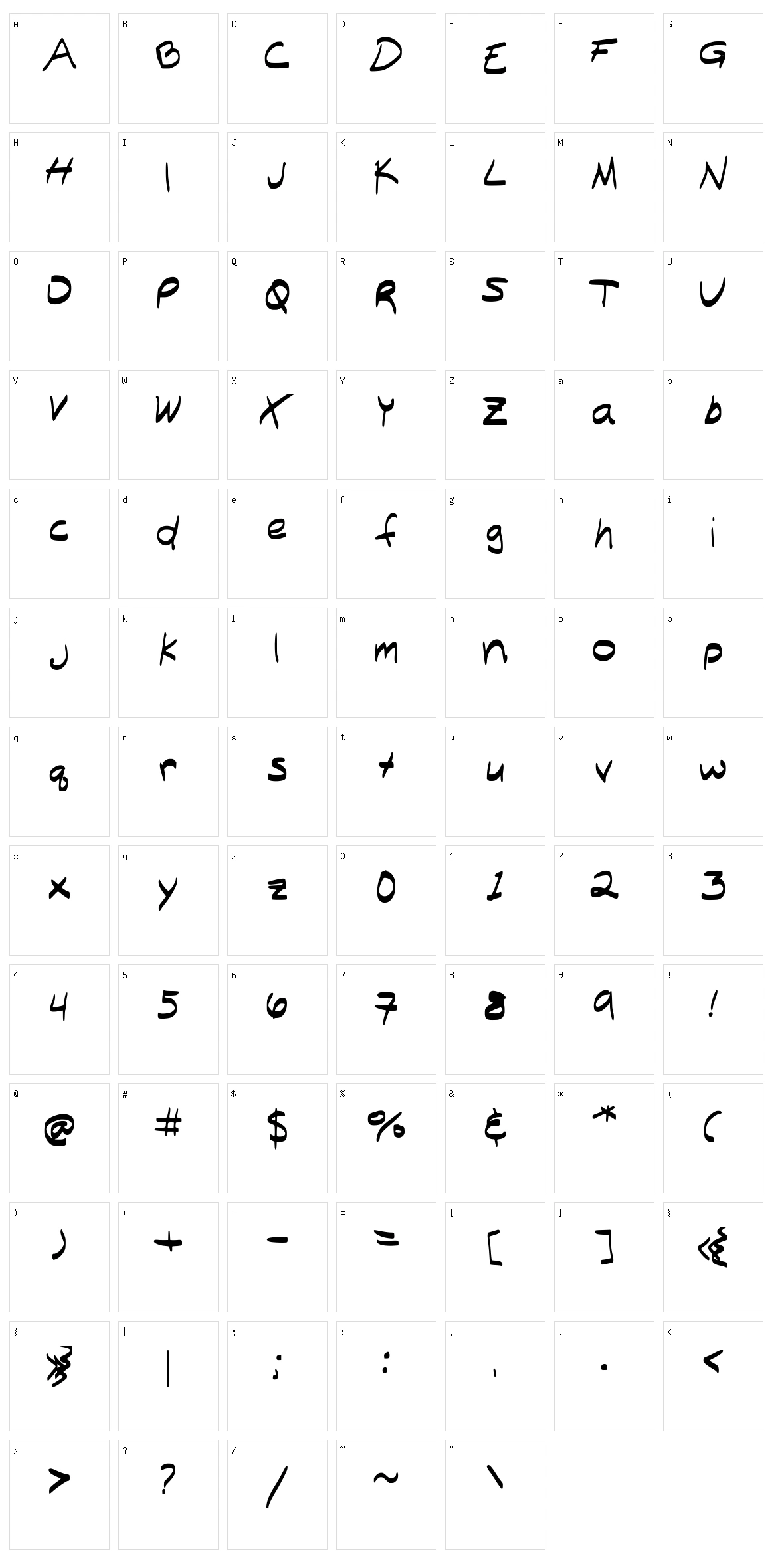
The free font Billy Milly is carefully designed by Billy, showcasing a thoughtful balance of creativity and usability and falls under the Script font style. When you download the ZIP file, it contains only 26.22 KB of font files, making it lightweight and quick to download. Please review the license details below to understand permitted usage and distribution rights. If license information is not available, we recommend using this font for personal projects only or contacting the author directly for commercial usage permissions.